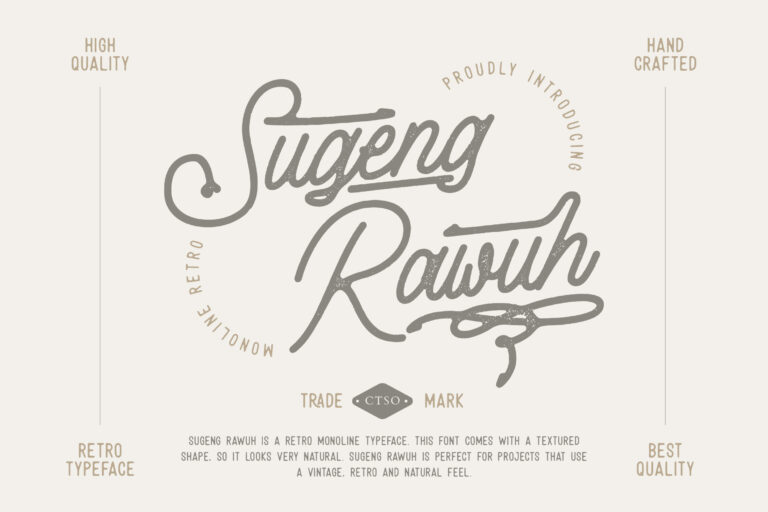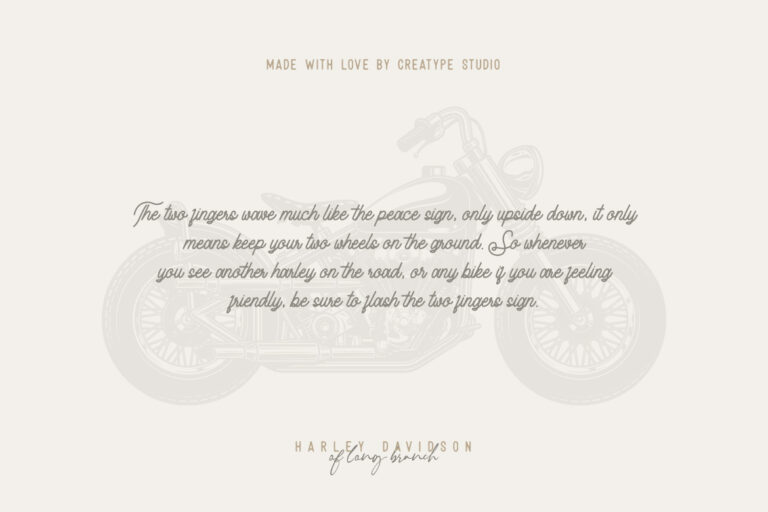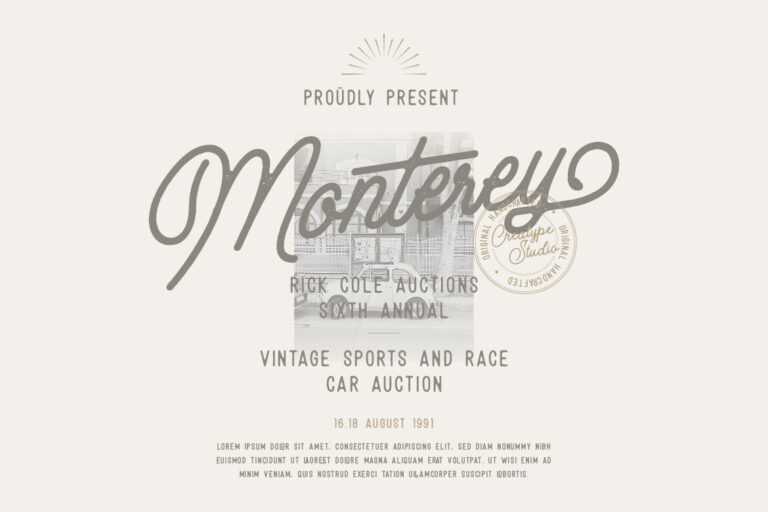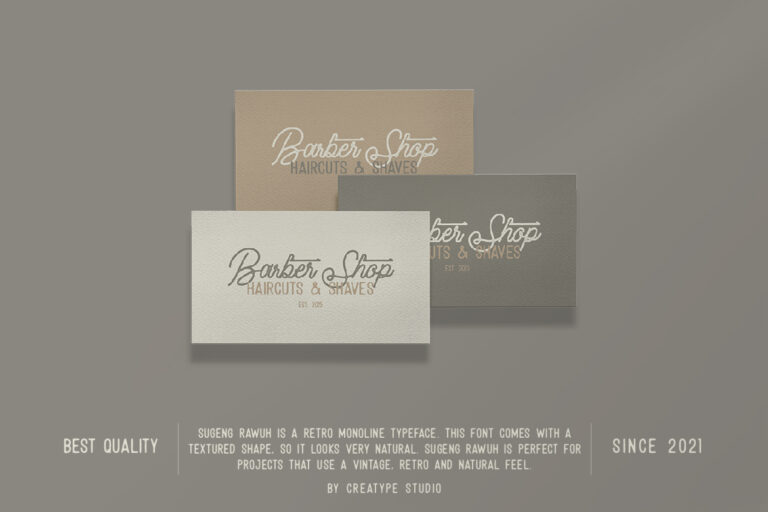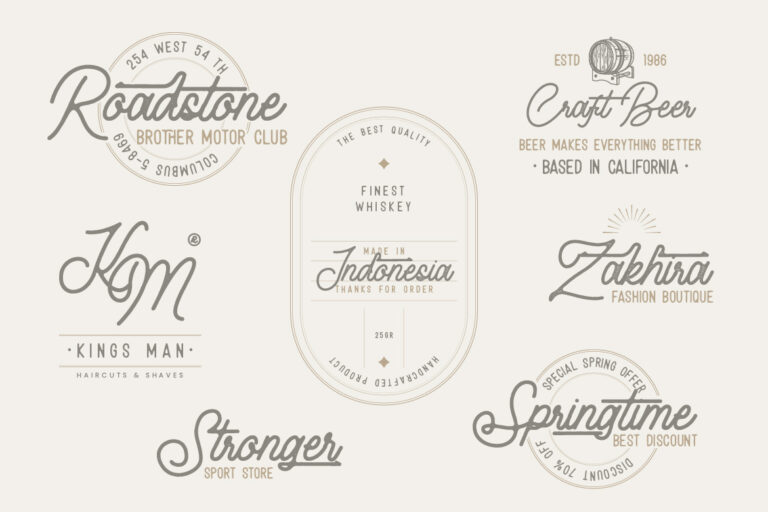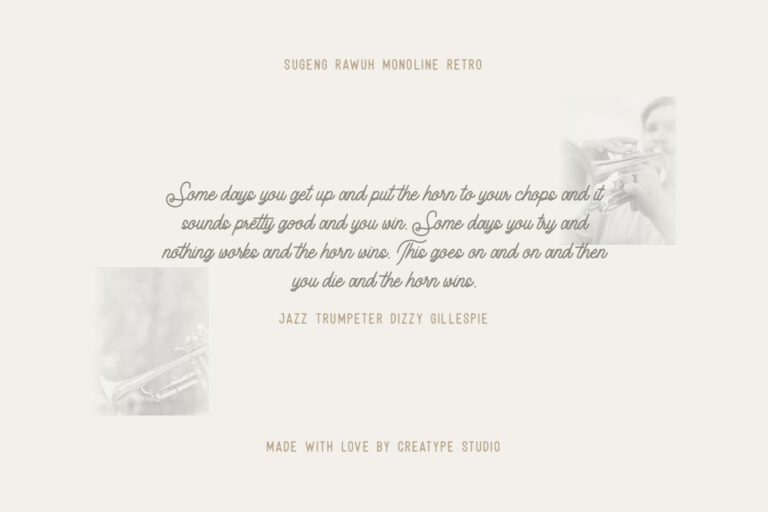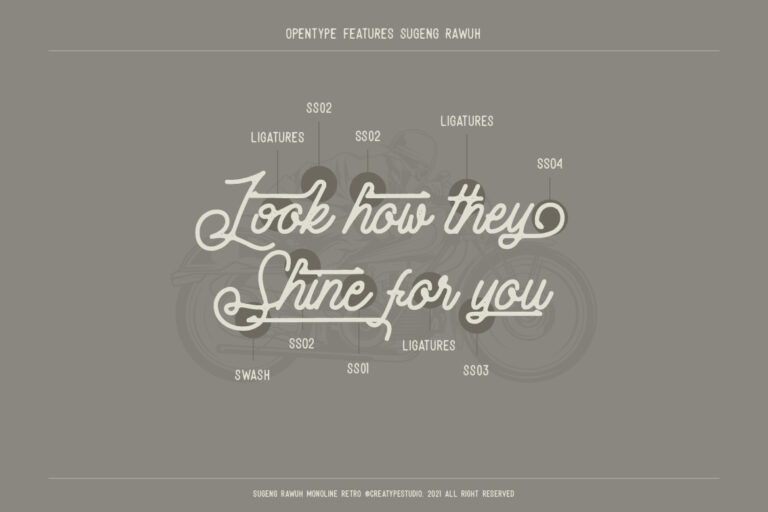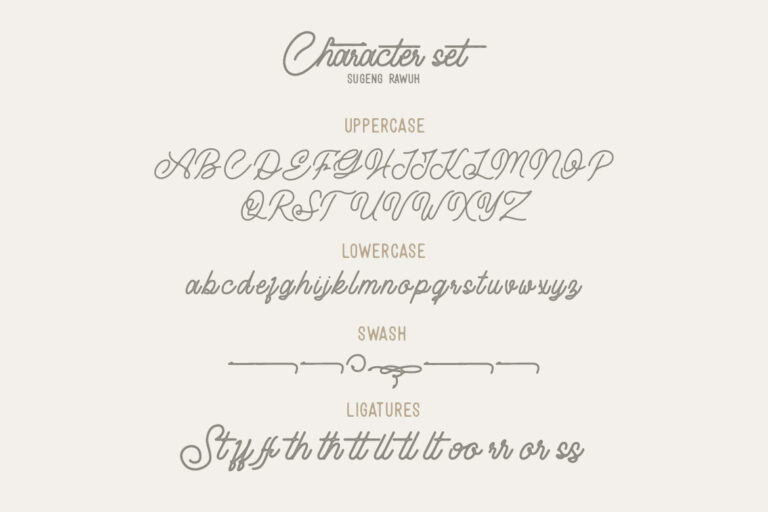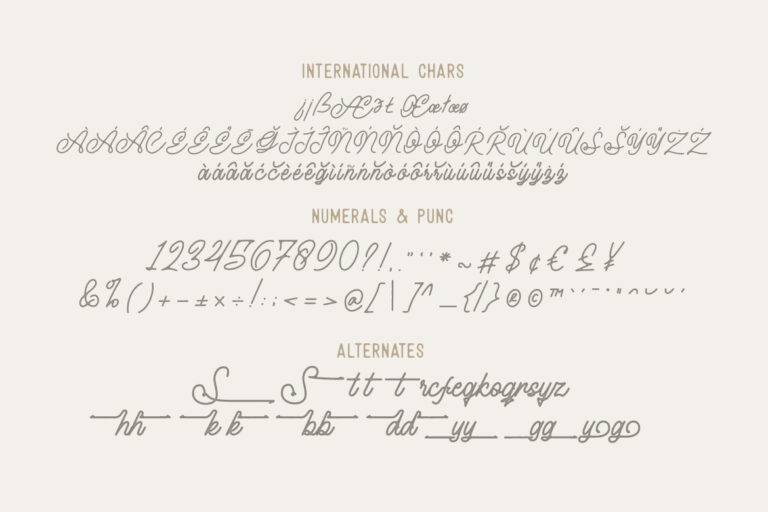
Sugeng Rawuh is a retro monoline typeface. This font comes with a textured shape, so it looks very natural. Sugeng Rawuh is perfect for projects that use a vintage, retro and natural feel.
Sugeng Rawuh is perfect for branding projects, logo, wedding designs, social media posts, advertisements, product packaging, product designs, label, photography, watermark, invitation, stationery and any projects that need handwriting taste.
Sugeng Rawuh Monoline Retro